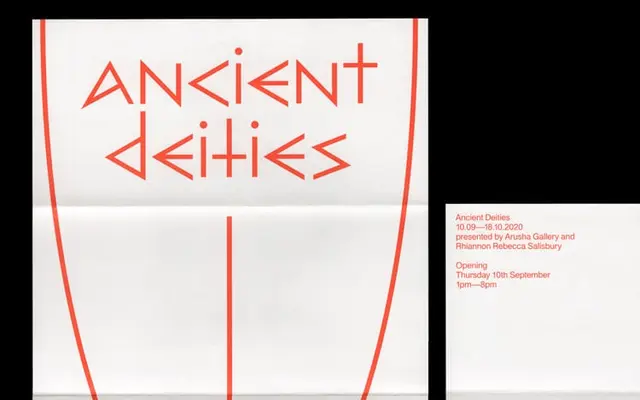
Architype Bill
The Foundry Types · Max Bill
A geometric typeface reconstructed from Max Bill's 1949 exhibition poster lettering, built almost entirely from straight lines and triangles on a mathematical framework.
Part of The Foundry's Architype Universal collection, this face reconstructs letterforms Max Bill developed for a 1944 poster, extending them into a working typeface while preserving the strict constructivist logic of the originals. Nearly every character is derived from straight lines and triangles alone, with only the letter 'o' departing from that rule. The single-style family reflects the universal alphabet theory shared by Bauhaus-era designers, resulting in a deliberately limited but historically grounded character set.
Derived from Max Bill's Bauhaus-influenced letterforms constructed from straight lines and triangles on a mathematical basis, placing it firmly in geometric display territory with a single-weight, limited character set consistent with avant-garde universal alphabet principles.